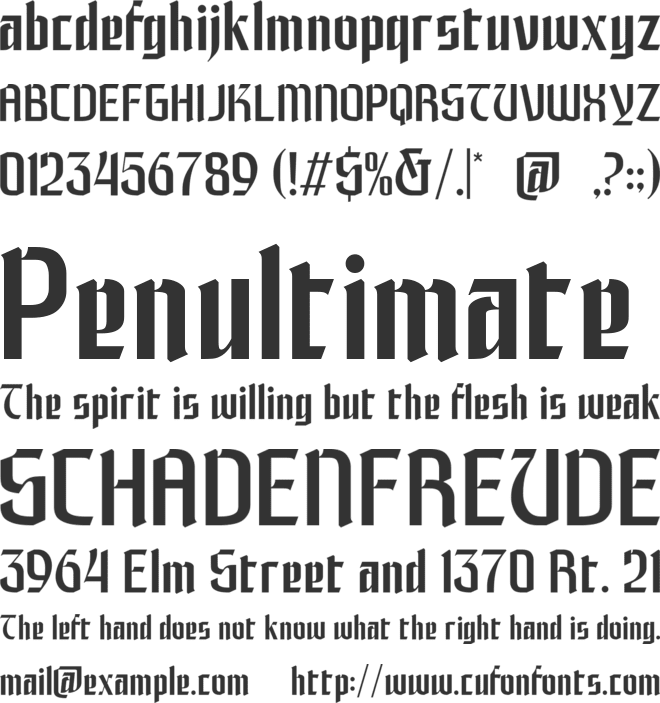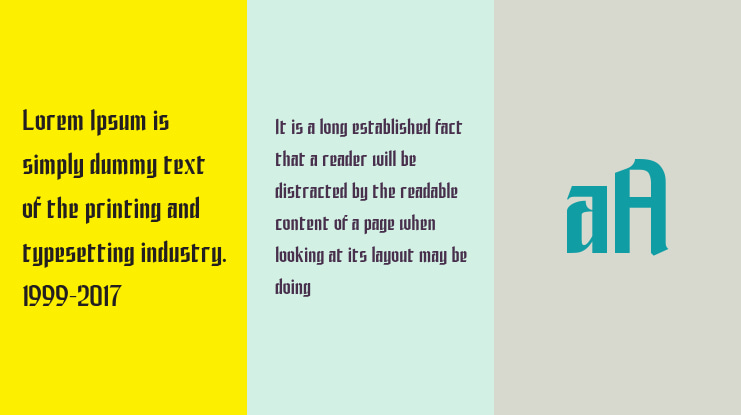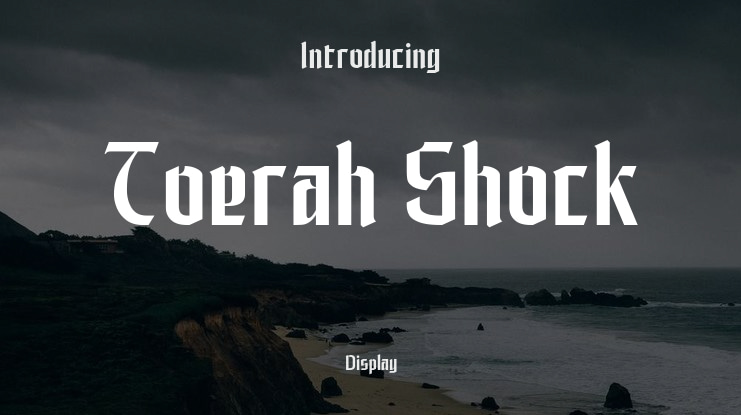
Toerah Shock Font
Tourah Shock Typeface
Where Blackletter Heritage Meets Modern Urban Power
Step into the bold world of Tourah Shock Typeface – a fearless fusion of blackletter tradition, elegant serif structure, and tribal artistry. Crafted for designers who crave impact, emotion, and edge, Tourah Shock is more than a typeface — it’s a visual force of dark elegance and structured defiance.